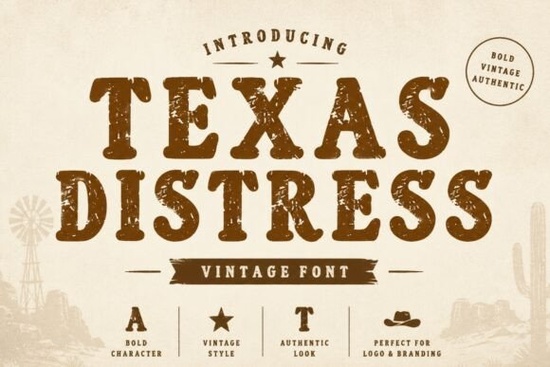
The Texas Distress Font is a standout choice for anyone looking to add a rugged, authentic feel to their design projects. This bold vintage western font features distressed textures and cowboy-inspired letterforms that evoke the spirit of the American frontier. Whether you're working on a ranch logo, a country music poster, or a saloon sign, this font delivers a strong visual impact with a handcrafted touch.
Designed with creativity in mind, Texas Distress blends rustic charm with modern usability. Its weathered appearance adds character and nostalgia, making it ideal for retro-themed projects. The font works well across various mediums, from apparel designs to packaging and signage. If you're a designer, crafter, or small business owner, this font can help elevate your work with its unique aesthetic.
Why Texas Distress Works for Western-Themed Projects
One of the key strengths of Texas Distress is its ability to convey a sense of history and authenticity. The distressed textures give the font a worn, handmade quality that feels genuine. This makes it especially effective for branding that wants to communicate a sense of tradition or heritage. For example, a small business selling western gear or a print-on-demand seller creating t-shirts with cowboy themes could benefit from using this font.
The font's versatility also makes it a valuable addition to any designer's toolkit. It can be used in both digital and print formats, and its bold style ensures it remains legible even at smaller sizes. Whether you're designing a logo, a poster, or a packaging label, Texas Distress provides a strong visual foundation that supports your creative vision.
How to Use Texas Distress Effectively
When using Texas Distress, consider the context of your project. For instance, pairing it with a clean, modern sans-serif font can create a nice contrast that highlights its ruggedness. On the other hand, using it with other distressed or vintage-style fonts can create a cohesive, thematic look.
It's also helpful to experiment with color and texture. Since the font already has a weathered appearance, adding a subtle background texture or using muted color palettes can enhance its overall effect. Don't be afraid to test different combinations to see what works best for your specific needs.
If you're looking to expand your font collection, Texas Distress is a solid choice that brings a unique flair to any project. Whether you're working on a personal hobby or a professional design, this font offers the right balance of style and functionality.
- Consider the tone and theme of your project before selecting a font.
- Test different pairings to find the best visual balance.
- Use muted colors or textures to complement the font's distressed look.